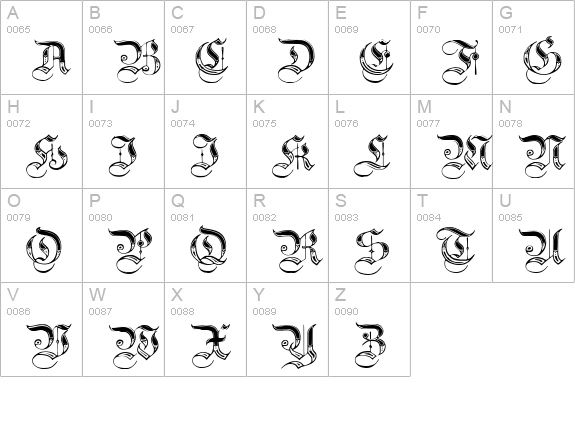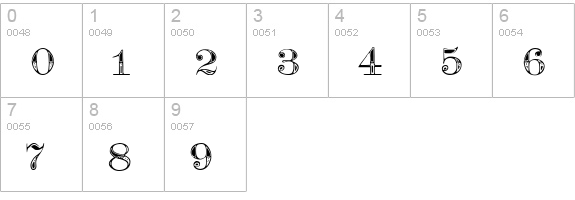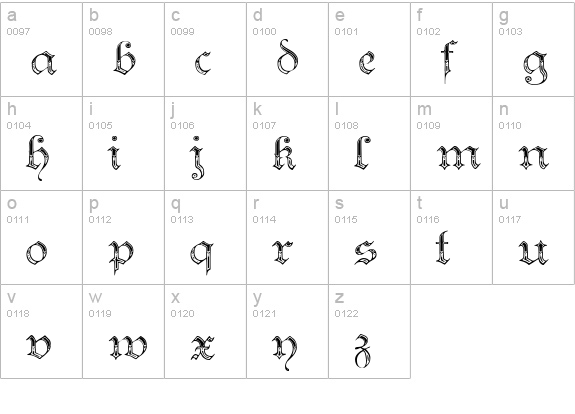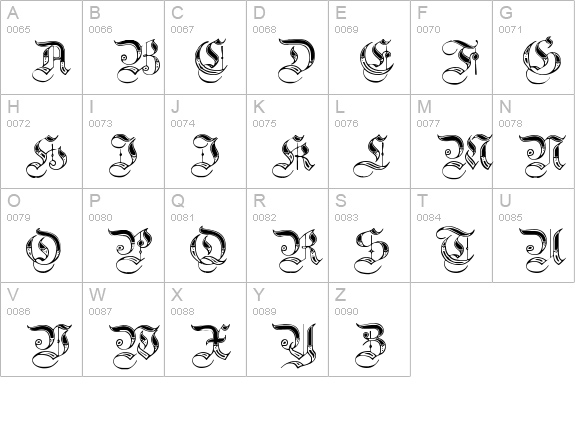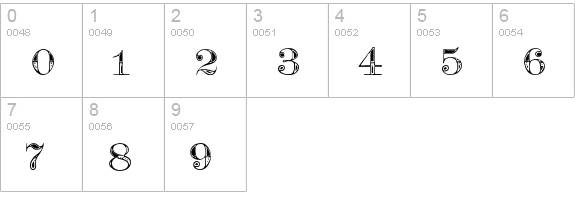
Teutonic No4 DemiBold is a sub-bold, structured variant in the Teutonic typeface family \xE2\x80\x94 well suited to sub-headlines and emphasised passages.
Teutonic No4 DemiBold font exudes a sense of modern sophistication and timeless elegance. With its bold and striking appearance, this font is perfect for creating impactful headlines, logo designs, and branding materials. The clean lines and sturdy structure of Teutonic No4 DemiBold make it a versatile choice for a wide range of design projects. Best of all, Teutonic No4 DemiBold font is available for free download at FontsMarket.com. This means you can easily access and use this premium font in your projects without any cost. Don't miss out on the opportunity to elevate your designs with the bold and distinctive style of Teutonic No4 DemiBold font. Download it now and add a touch of sophistication to your creative work.